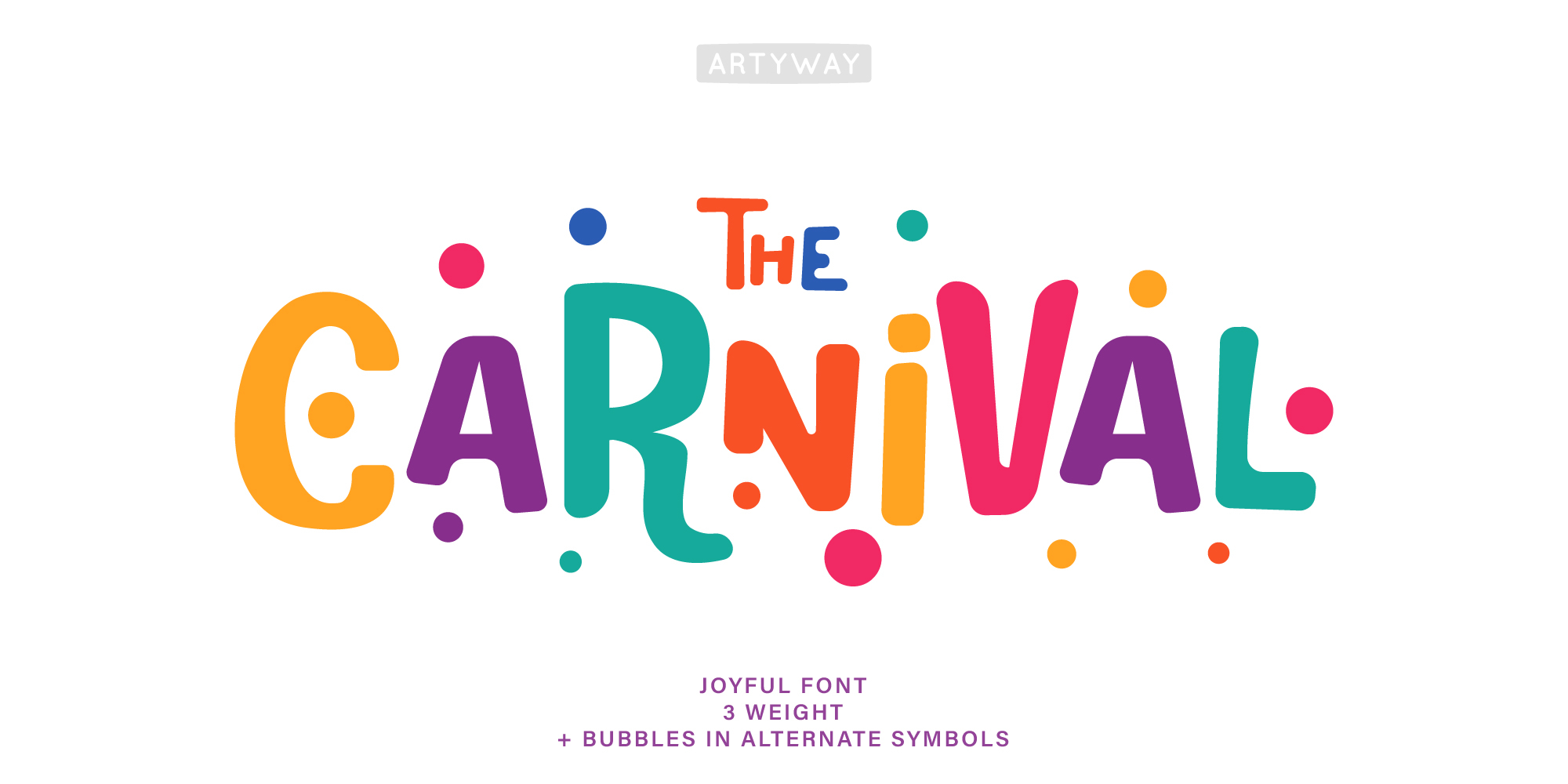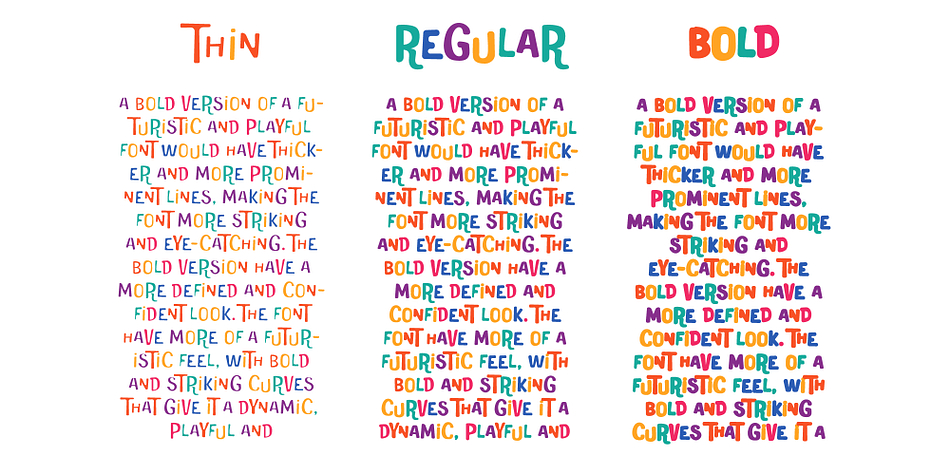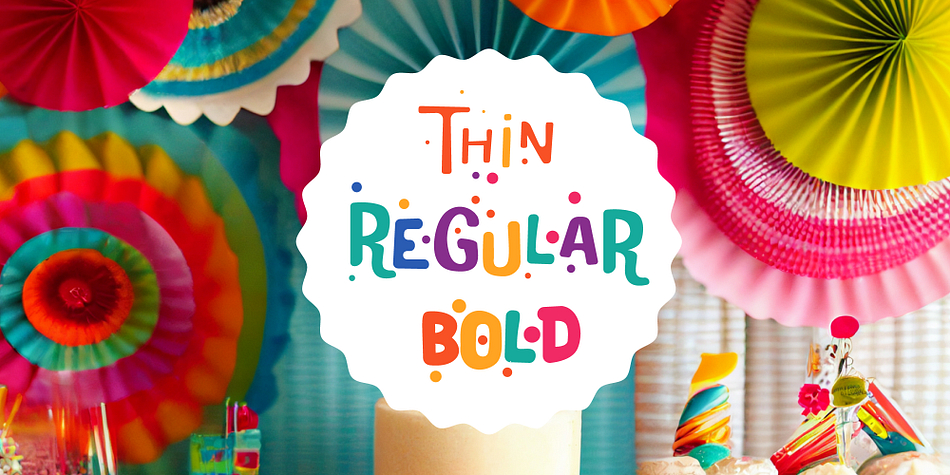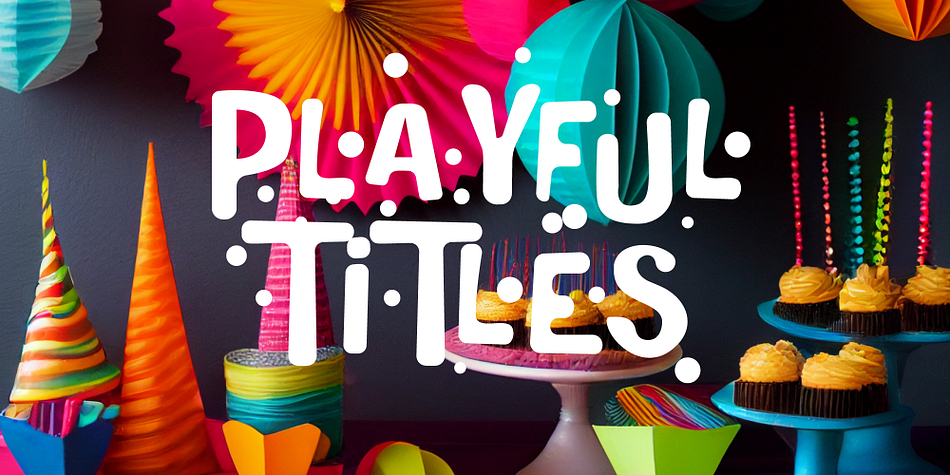
CARNIVAL FEST
Designed by Yehor Lisnyi, Carnival Fest is a display sans and hand display font family. This typeface has three styles and was published by Artyway.
Introducing the “Carnival-Fest” font, the perfect addition to any party or celebration! This colorful and playful font features rounded letters in a variety of bright hues, making it perfect for birthday invitations, carnival posters, and party headlines. Add a touch of fun and excitement to your event with “Carnival-Fest”!
English colored letters
Light, Regular and Bold weight coverage
Alternate symbols with bubbles
Some punctuations